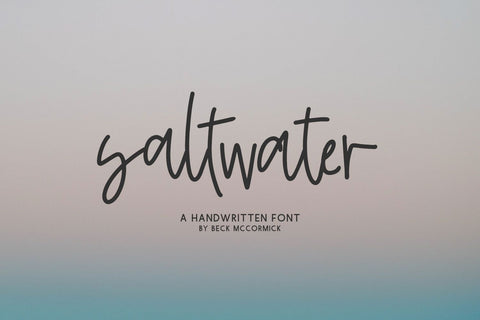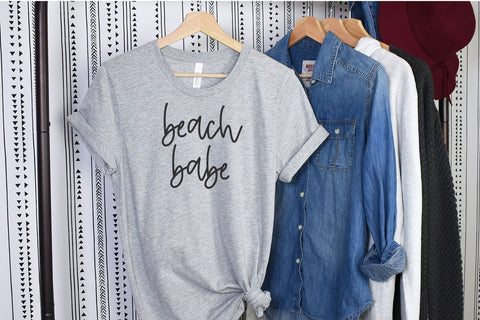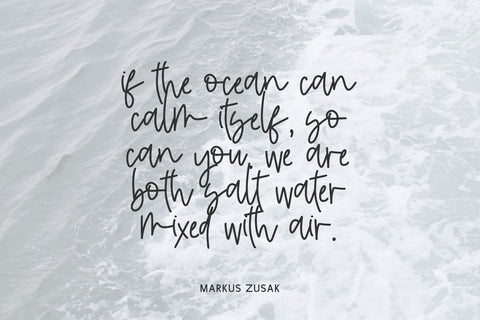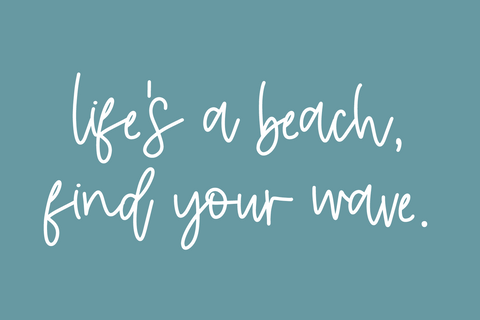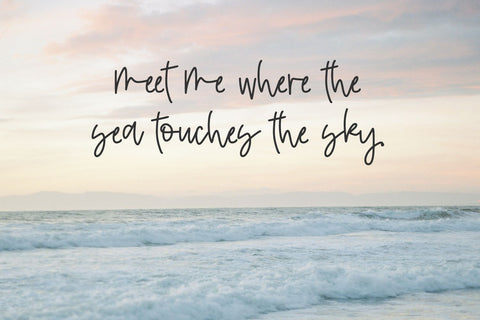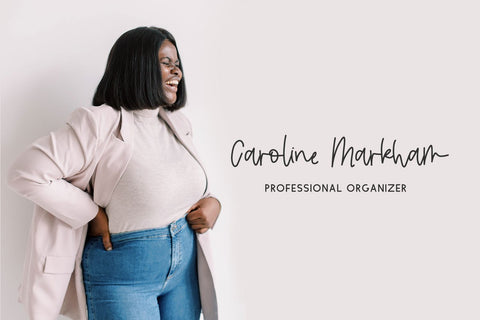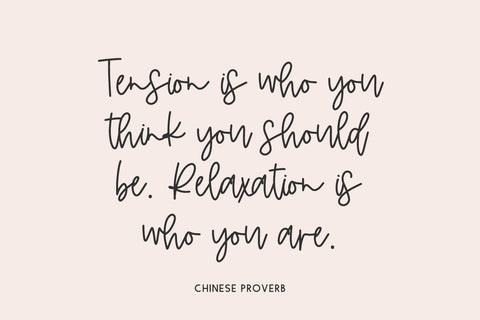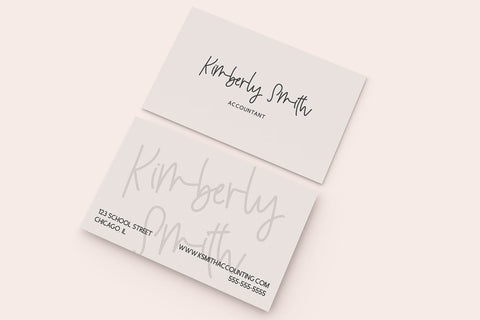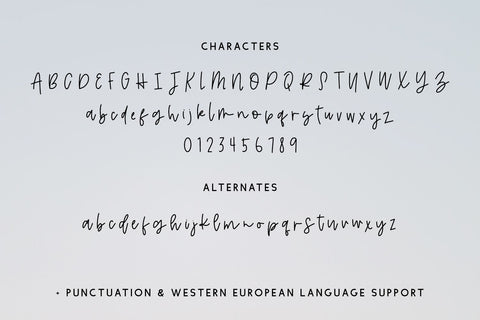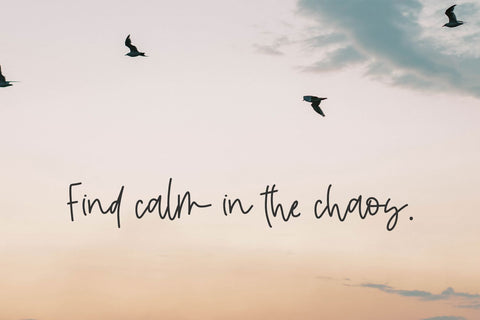
Saltwater Script Font
Introducing Saltwater Script, a monoline handwriting font. Saltwater includes alternates to enhance the handwritten look!
Saltwater is best for:
- logos + branding
- website design + website accents, blog design
- clean print design, like magazines + flyers
- header elements that need handwritten touch
- quote graphics for social media
Saltwater includes:
- full upper + lowercase characters
- numbers + punctuation
- Western European Language Support
- 26 alternate lowercase characters